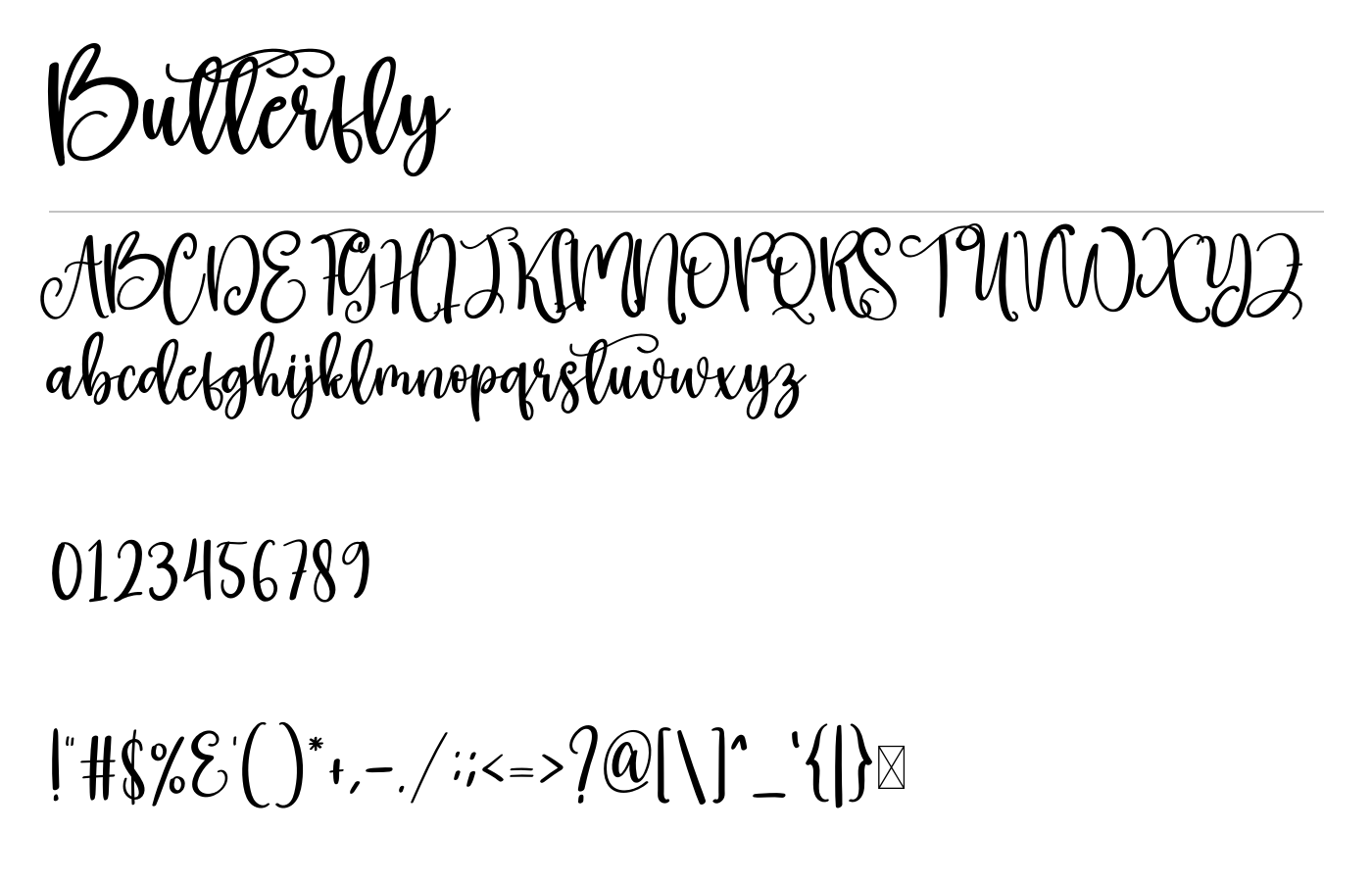
Butterfly Font is a charming and delicate script typeface featuring elegant, flowing letterforms with a playful touch. Its smooth, handwritten style with varying stroke thickness and decorative swashes makes it perfect for creative projects like invitations, branding, and logos where a personal, artistic feel is desired. This font shines in designs that seek warmth and a whimsical yet refined atmosphere.
Butterfly Font
About Butterfly Font